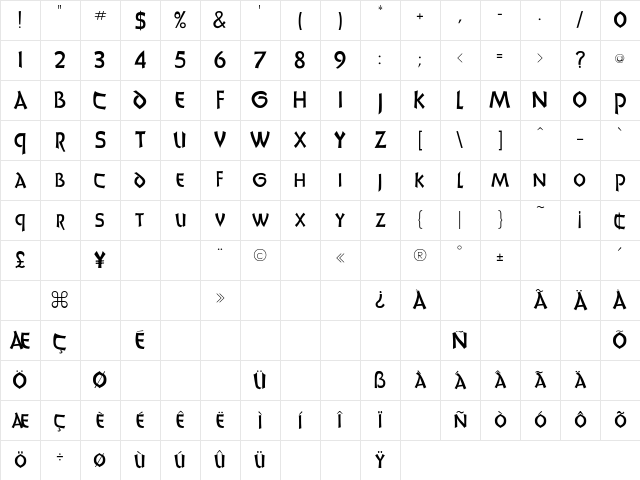
UnciaDis Regular Free Font
UnciaDis Regular
Design Context for UnciaDis
UnciaDis is a composed and adaptable typeface that performs quietly and consistently across a wide range of design contexts.